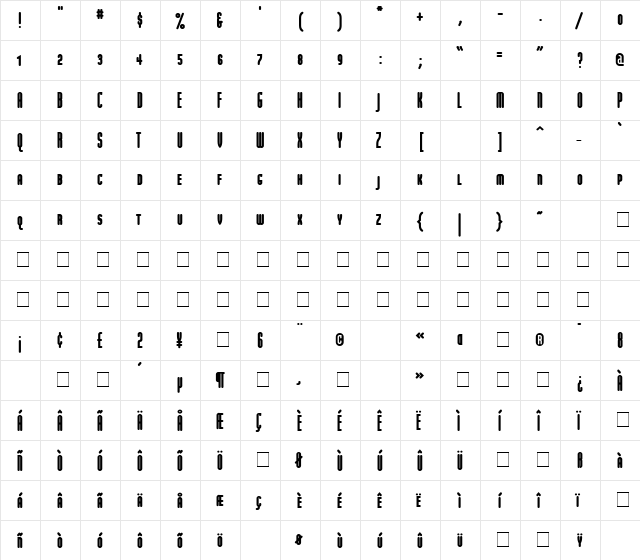
ModulaRoundBlackSmallCaps Round Black Small Caps
Design Context for ModulaRoundBlackSmallCaps Typeface
ModulaRoundBlackSmallCaps softens its letterforms with rounded terminals, giving it an approachable, friendly quality that works well in consumer-facing and digital contexts.
Well-suited to UI design, mobile interfaces, and any brand that wants approachability without sacrificing clarity.
Font Pairing: Pairs well with a rounded or humanist sans for body copy, maintaining the friendly tone without relying on ModulaRoundBlackSmallCaps to carry extended reading.
Pro Tip: Use ModulaRoundBlackSmallCaps for UI elements, app interfaces, and anywhere a friendly, approachable tone needs to be maintained without sacrificing clarity.